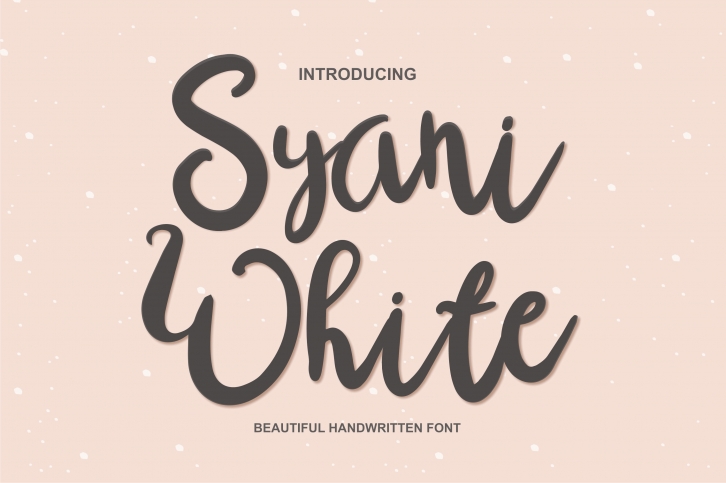
Syani White is a flowing and delicate script font. It has beautiful and well balanced characters and as a result, it matches a wide pool of designs. Add it to your most creative ideas and notice how it makes them come alive!